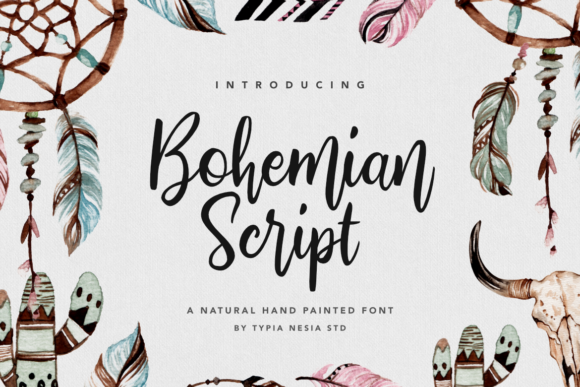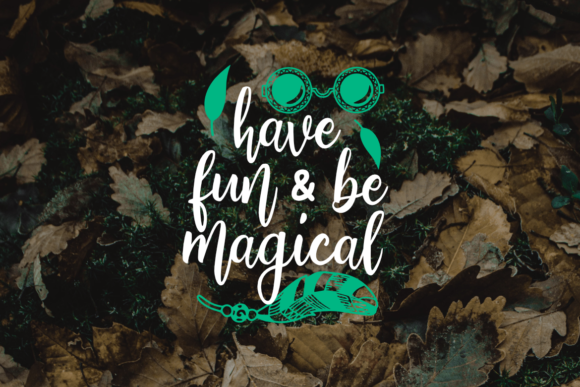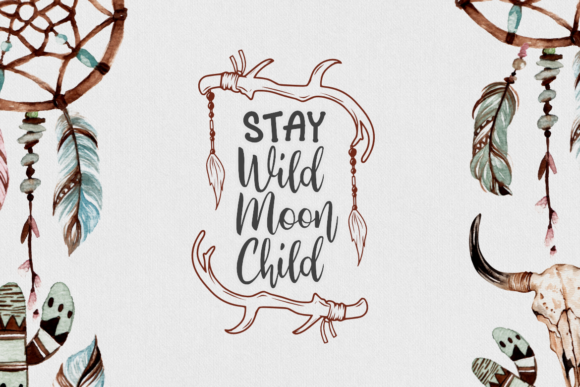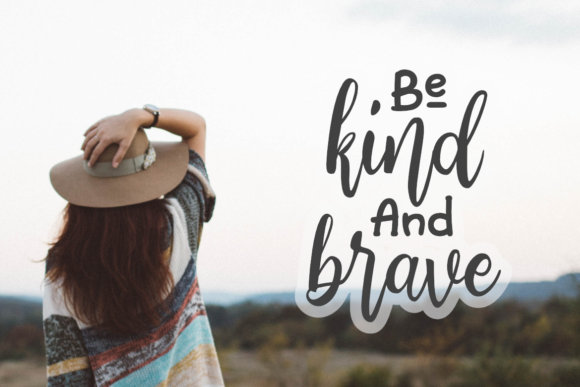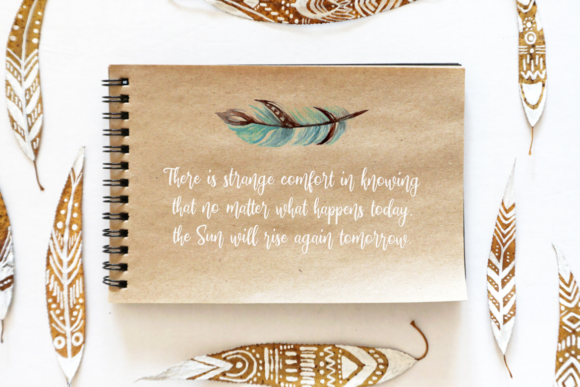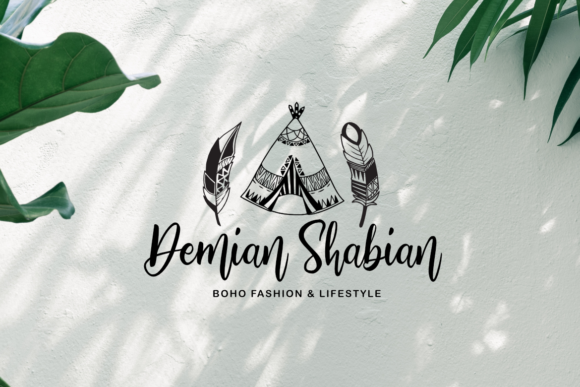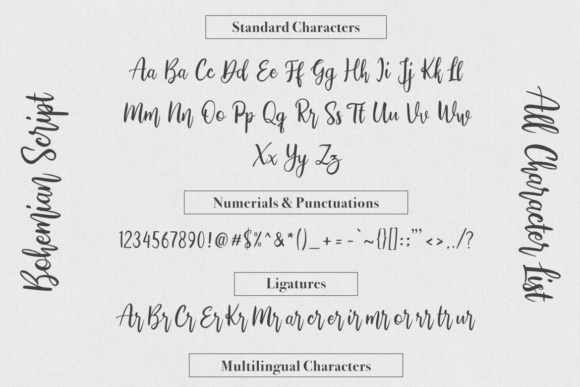
Bohemian Script Font
About Bohemian Script Font
Bohemian is a beautiful and fresh handwritten font with an organic feel. It will put an authentic twist on any design idea!